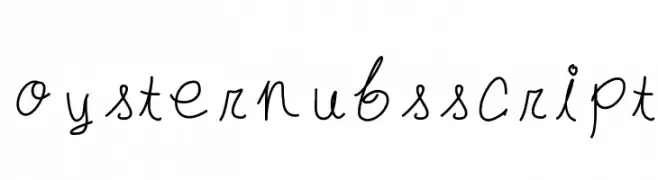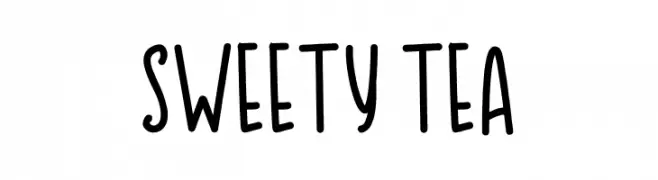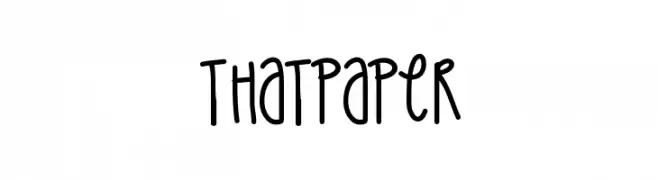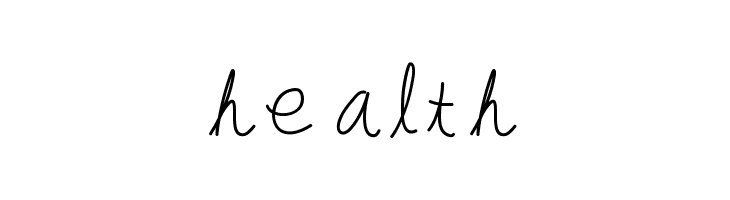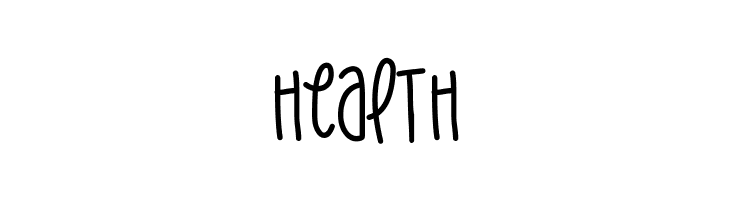
( Fonts by Kristy Hatswell )
A playful, casual handwritten font with smooth, rounded edges and a friendly appearance.
( Fonts by Youssef Habchi )
A fluid, cursive script font with elegant, natural handwriting style.
( Fonts by Docallisme HAS )
A playful, handwritten font with tall, narrow letters and smooth, rounded strokes.
An elegant, flowing script font with a handwritten feel.
( Fonts by Dayan Marquina )
A playful and whimsical script font with fluid, cursive strokes.
An elegant script font with intricate flourishes and a calligraphic style.
An elegant script font with flowing, calligraphic style and bold strokes.